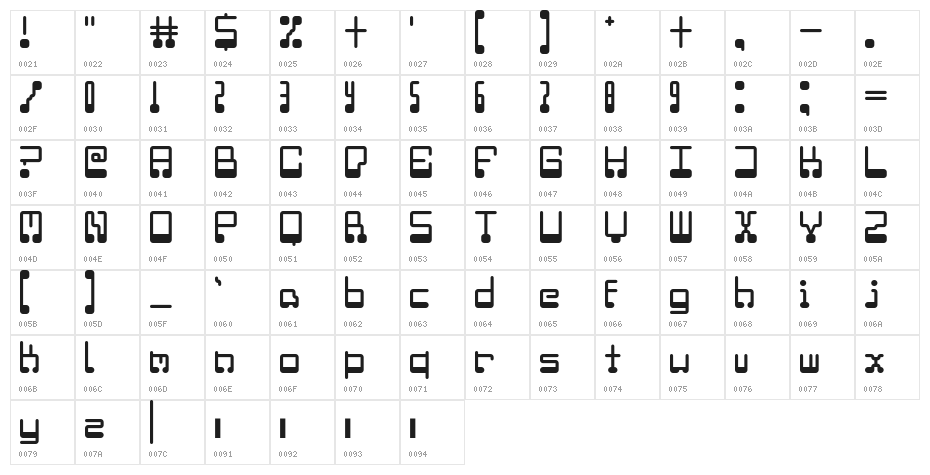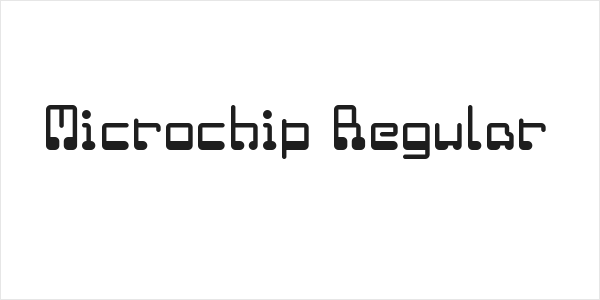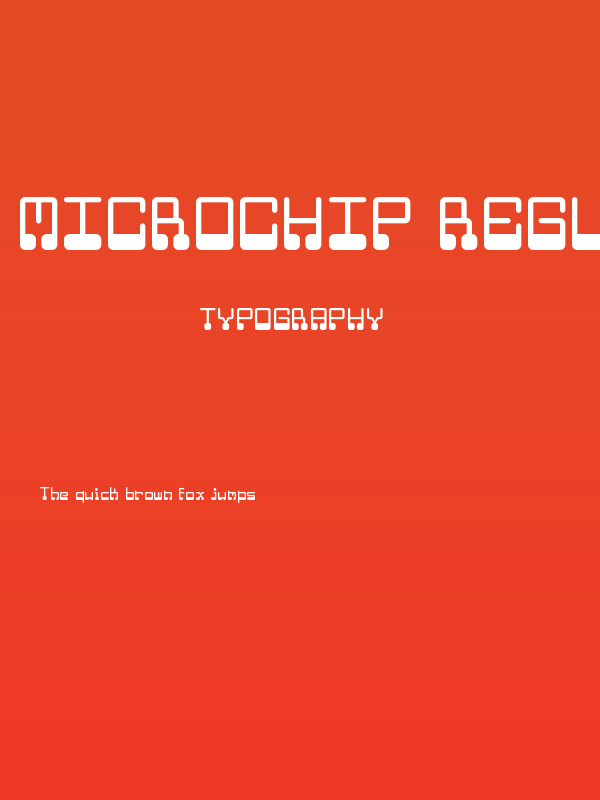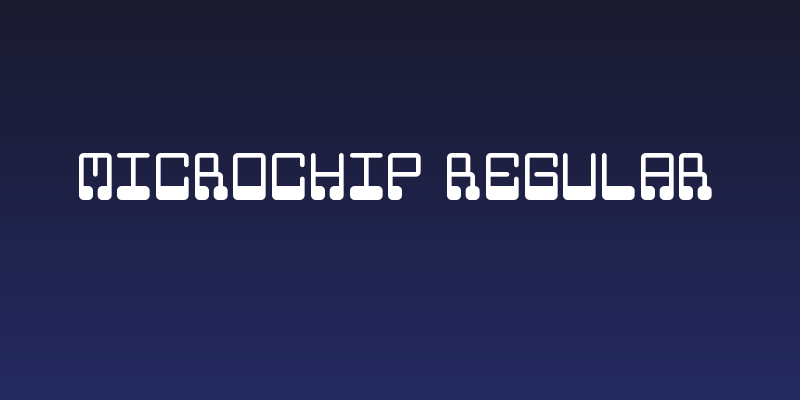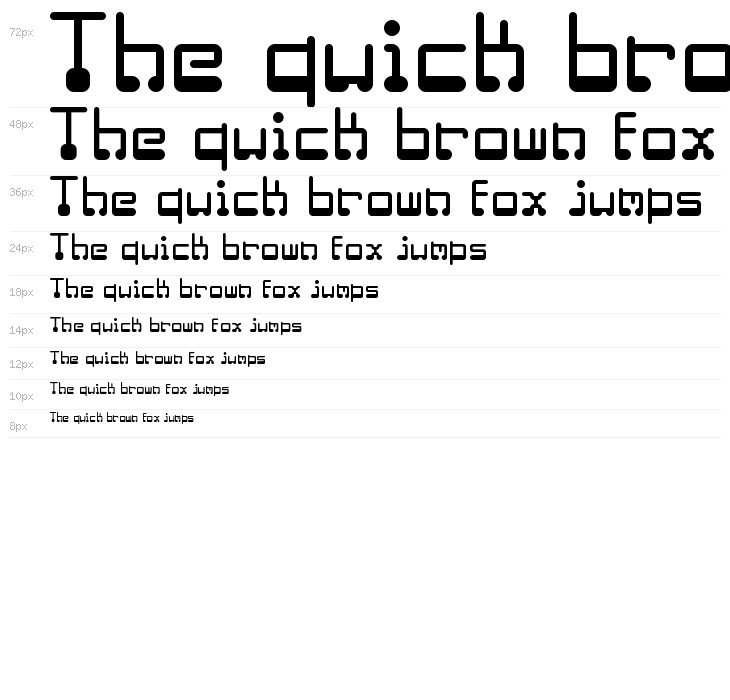
Microchip Regular Font
| Anwendungsfall | Logos, Headlines, Tech interfaces |
| Vorgeschlagene Projekte | Ideal for tech-related branding, digital interfaces, video game design, and futuristic posters. |